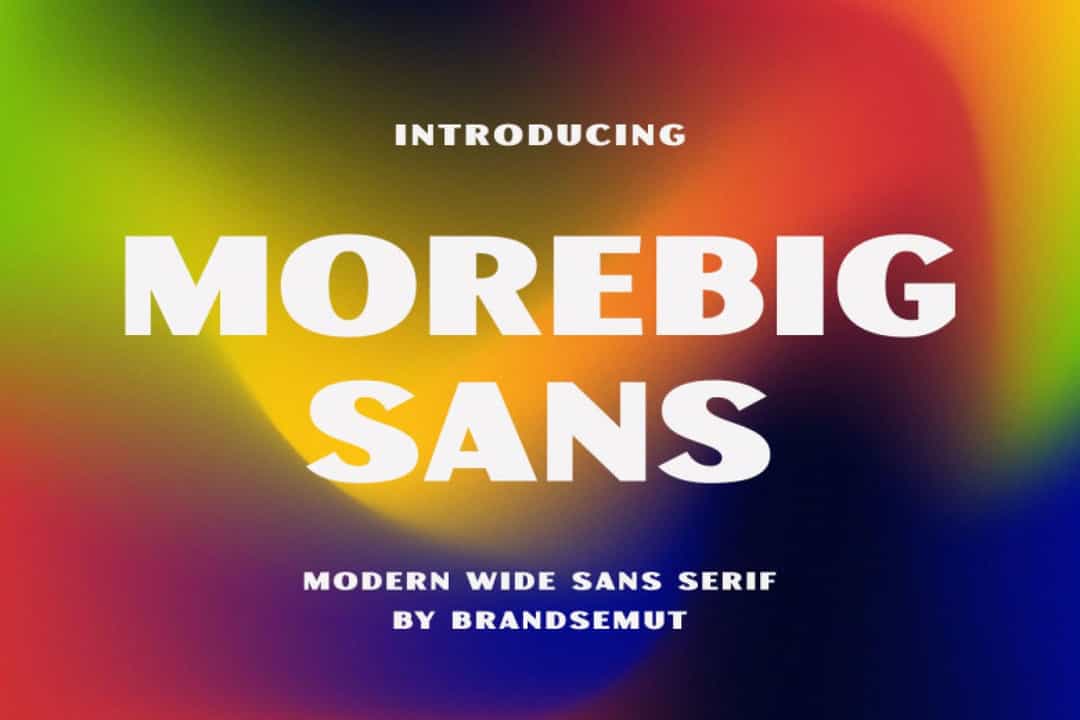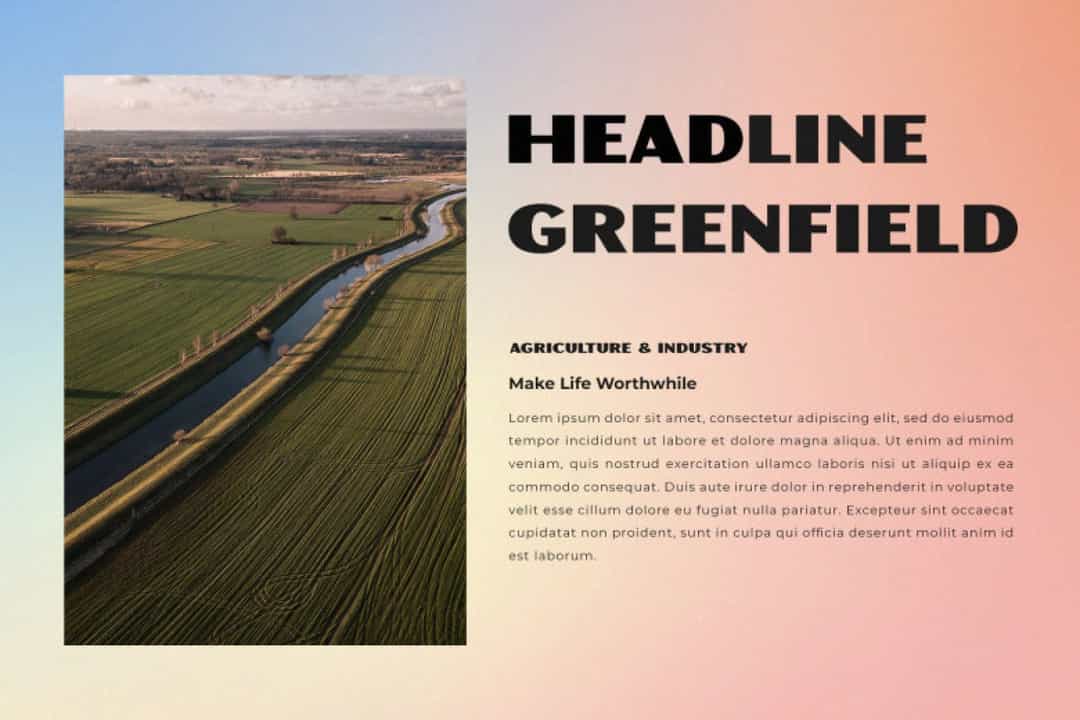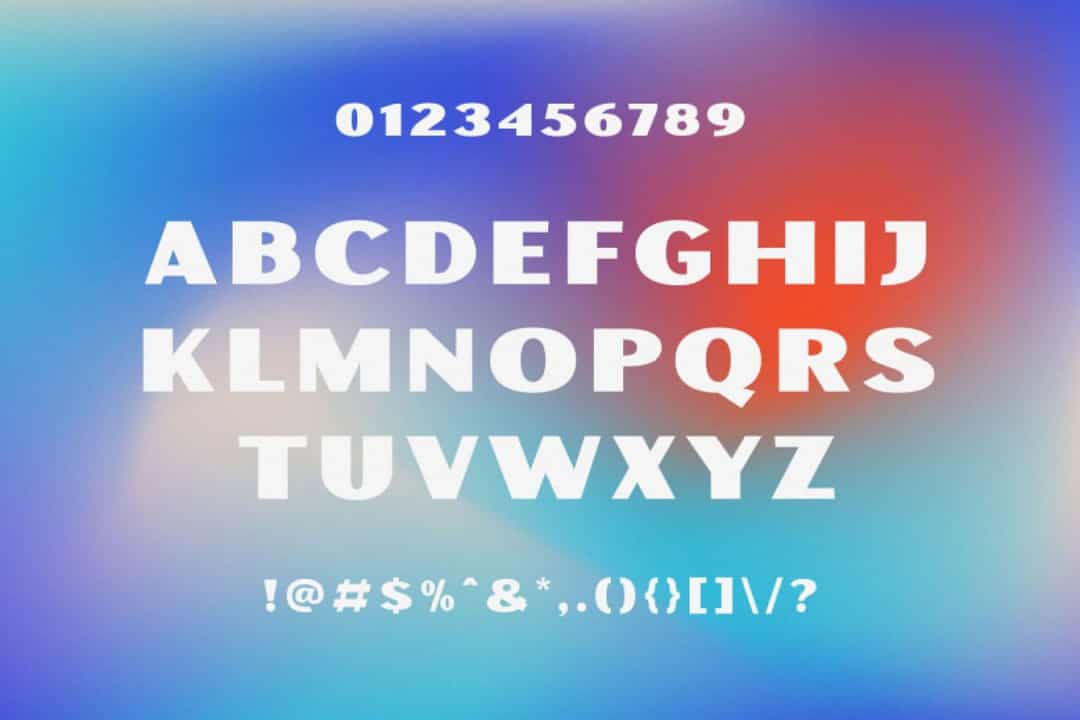
Morebig Sans is a contemporary and elegant bold sans serif font designed for use as the basis of logos, headings, magazines, branding projects, packaging designs, invitations and invitations. Morebig Sans features clean lines and soft curves that give any project an additional dash of elegance.